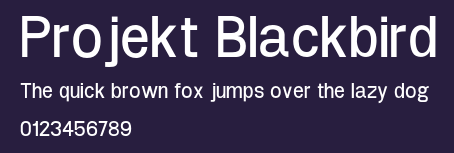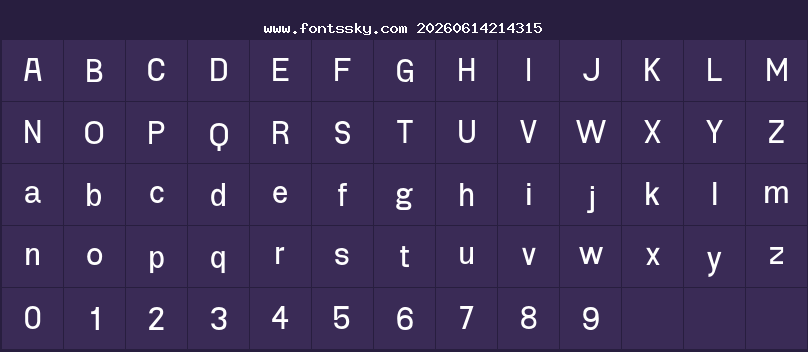
Projekt Blackbird Preview
• Font Name: Projekt Blackbird
• Full Font Name: ProjektBlackbird-Regular
• PostScript Name: ProjektBlackbird-Regular
About Projekt Blackbird.otf
Projekt Blackbird.otf is a modern, elegant sans-serif font designed for ultimate readability and visual harmony. Perfect for branding, headlines, web design, and print materials.